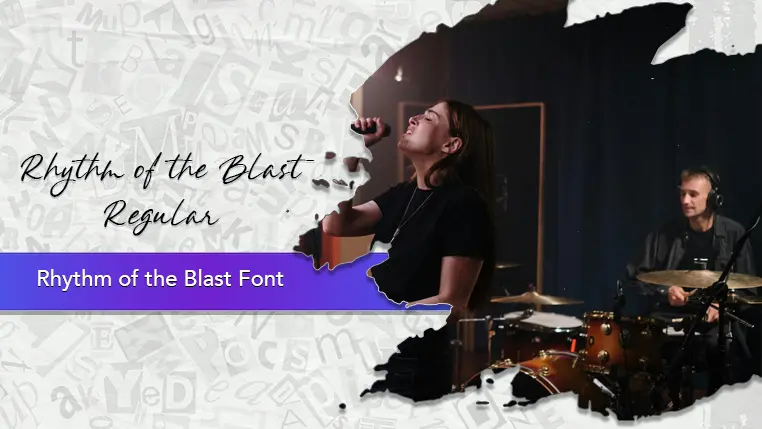
The Rhythm of the Blast font family may be ideal for you if you enjoy working on an artistic design project. The lively, expressive look of this typeface, which was created by BlackFridayFont FMF, makes it ideal for Music and band promotion. It would work well for titles and branding for video games, comic books, or movies in the action or adventure genres. Its dynamic nature would make it suitable for sports team logos, apparel, or marketing materials aimed at a younger demographic. This font is ideal for headlines, social media graphics, or T-shirt designs where a bold, high-energy statement is the goal. The font may have a hand-drawn or street-art feel, making it perfect for designs that aim to capture an urban or rebellious aesthetic. and other light-hearted visual projects.
Regular are the one primary font styles of the Rhythm of the Blast font family. You may build dynamic, visually appealing text layouts with the distinct flair that each style offers. With crisp, readable lines and a relaxed tone.